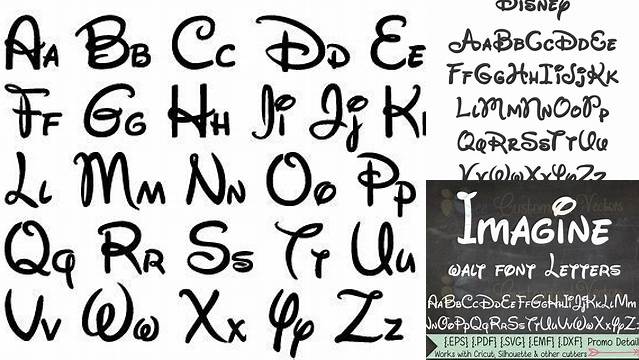
Magical Disney Fonts For Silhouette Studio: A Complete Guide
Hey crafters! Are you looking to add a touch of Disney magic to your Silhouette Studio projects? Well, you've come to the right place! In this guide, we'll explore everything you need to know about Disney fonts for Silhouette Studio, from finding the perfect typeface to using it in your amazing creations. Let's dive in and sprinkle some pixie dust on your designs!
1. Understanding Disney Fonts
So, what exactly are Disney fonts, guys? They're typefaces that capture the whimsical and enchanting spirit of Disney's iconic branding. Think about the classic Disney logo – that's a font! Many fan-made and inspired fonts aim to replicate this look, allowing you to bring that familiar magic to your own projects. However, it's crucial to understand that the official Disney fonts are copyrighted. Using them for commercial purposes without permission is a no-no. But don't worry! There are tons of fantastic free and paid alternatives that capture the Disney vibe without infringing on copyrights. When we talk about Disney fonts for Silhouette Studio, we are generally referring to these inspired typefaces that evoke the magic of Disney.
When searching for Disney fonts for Silhouette Studio, you'll notice there isn't one single “Disney font.” Instead, there’s a whole collection of fonts that capture different aspects of the Disney aesthetic. Some fonts mimic the classic, rounded lettering of the Disney logo, while others are inspired by specific characters or movies. This variety allows for a ton of creative expression in your projects. For instance, you might use a bold, whimsical font for a Mickey Mouse-themed birthday invitation or a more elegant, script-like font for a Cinderella-inspired design. The key is to choose a font that fits the overall style and theme of your project, enhancing the magical touch you're aiming for. Before downloading any fonts, always double-check the licensing agreement. Many free fonts are for personal use only, which means you can use them for your crafting projects at home but not for anything you plan to sell. If you intend to create products for sale, make sure to find fonts with a commercial license. This will protect you from any potential copyright issues down the road. Understanding these nuances will help you navigate the world of Disney fonts for Silhouette Studio with confidence and creativity, ensuring your projects are both magical and legally sound. Remember, the magic is in the details, and choosing the right font can make all the difference!
2. Where to Find Disney Inspired Fonts
Another tip for finding the perfect Disney fonts for Silhouette Studio is to look beyond the obvious. Think about the specific movies or characters that inspire you. Is there a particular typeface used in the movie's promotional materials or credits? You might be able to find fonts that closely resemble these styles. Social media can also be a fantastic resource. Follow crafters and designers who create Disney-themed projects, as they often share information about the fonts they use. Online forums and crafting communities are also great places to ask for recommendations. Members are usually happy to share their favorite fonts and resources. Plus, you might discover hidden gems and lesser-known font designers through these communities. When you find a font you love, make sure to save it to a folder on your computer for easy access. You can even create subfolders for different font styles or themes to keep things organized. Don't be afraid to experiment with different fonts and combinations to see what works best for your projects. After all, the magic of crafting is in the exploration and discovery! Remember, the perfect Disney font is out there waiting to be found, and with a little bit of searching, you'll have a collection of fonts that bring your Disney dreams to life in your Silhouette Studio projects. Happy font hunting!
4. Using Disney Fonts in Silhouette Studio Projects
Okay, the Disney fonts are installed, Silhouette Studio is open, and your creative juices are flowing! Now, let's talk about actually using these fonts in your projects. The possibilities are endless, guys! You can use Disney fonts for everything from personalized birthday cards and party decorations to custom t-shirts and home décor. Think about the projects you want to create and how a touch of Disney magic can elevate them. When using Disney fonts for Silhouette Studio, it’s important to consider the overall design and the message you want to convey. A whimsical, playful font might be perfect for a child's birthday invitation, while a more elegant, script-like font could add a touch of sophistication to a wedding-themed project. Experiment with different fonts and combinations to find the perfect fit for your vision.
One of the great things about Silhouette Studio is its versatility. You can easily resize, rotate, and manipulate fonts to create unique and eye-catching designs. Try adding shadows, outlines, or other effects to your fonts to make them stand out. You can also use the welding feature to connect script fonts seamlessly, creating a smooth and professional look. When working with Disney fonts for Silhouette Studio, remember to consider the cutting capabilities of your Silhouette machine. Some fonts, especially those with intricate details or thin lines, may be more challenging to cut than others. It's always a good idea to do a test cut on a small piece of material before committing to a larger project. This will help you identify any potential issues and adjust your settings accordingly. Another tip is to use the “Offset” feature in Silhouette Studio to create a thicker outline around your text. This can make the font easier to cut and weed, especially when working with delicate fonts or intricate designs. Don't be afraid to get creative with your font choices! Mix and match different fonts to create visual interest and add personality to your projects. You can also incorporate other design elements, such as images, shapes, and patterns, to complement your text and create a cohesive overall design. When choosing Disney fonts, think about the specific characters or movies that inspire you. Use fonts that capture the essence of these characters or stories to add a special touch to your projects. For example, you might use a font that resembles the lettering from “Beauty and the Beast” for a wedding invitation or a font inspired by “Toy Story” for a child's bedroom decor. The key is to have fun and let your creativity shine! With the right Disney fonts for Silhouette Studio and a little bit of imagination, you can create truly magical projects that will delight you and everyone who sees them.
5. Best Disney Font Alternatives
Okay, let's talk alternatives! While using the official Disney fonts might not always be an option due to copyright restrictions, there are tons of fantastic Disney font alternatives out there that capture the magic and whimsy of Disney without infringing on any rights. These alternatives are perfect for adding that special touch to your Silhouette Studio projects. So, what are some of the best options? One popular choice is the Waltograph font, which closely resembles the iconic Disney logo font. It's a classic choice that's instantly recognizable and adds a touch of nostalgia to any project. Another great option is Mouse Memoirs, which captures the playful and rounded style of the Disney lettering. It's a versatile font that works well for a variety of projects, from invitations to t-shirts.
When exploring Disney font alternatives, consider what aspects of the Disney aesthetic you want to capture. Are you looking for a font that mimics the classic logo, or are you more interested in a font that evokes the spirit of a particular movie or character? For example, if you're working on a Cinderella-themed project, you might look for a script font that has an elegant and fairytale-like feel. If you're creating something for a Toy Story fan, you might opt for a font that's more playful and whimsical. Some other great Disney font alternatives include fonts like Magic Kingdom, which has a slightly more modern and stylized look, and Storybook, which is perfect for adding a touch of whimsy to your projects. When searching for alternatives, pay attention to the details of the font. Look for fonts that have similar characteristics to the Disney fonts you love, such as rounded edges, playful curves, and a sense of movement. You can also experiment with different font combinations to create unique and eye-catching designs. For example, you might pair a script font with a bold sans-serif font to create a balanced and visually appealing look. Remember, the goal is to capture the essence of Disney in your projects without directly copying the official fonts. By exploring these Disney font alternatives, you can add a touch of magic to your creations while staying within the bounds of copyright law. So go ahead, unleash your creativity and start crafting your own Disney-inspired masterpieces!
6. Free Disney Fonts vs. Paid Disney Fonts
Alright, let's dive into the world of free versus paid Disney fonts. It's a question that many crafters ponder when searching for the perfect typeface for their Silhouette Studio projects. So, what's the deal? Well, both free and paid fonts have their pros and cons, and the best choice for you will depend on your specific needs and budget. Free Disney fonts can be a great option if you're just starting out or if you're working on personal projects. There are many websites that offer free fonts that capture the Disney spirit, such as DaFont and FontSpace. These fonts can be a fantastic way to add a touch of magic to your creations without spending any money.
However, it's important to be aware of the limitations of free Disney fonts. One of the biggest considerations is licensing. Many free fonts are only licensed for personal use, which means you can use them for your crafting projects at home but not for anything you plan to sell or use for commercial purposes. If you intend to create products for sale, you'll need to find fonts with a commercial license, which usually means opting for a paid font. Another factor to consider is the quality of the font. Free fonts are sometimes created by amateur designers, and they may not be as polished or well-designed as paid fonts. They might have kerning issues (the spacing between letters) or other technical flaws that can affect the overall look of your project. Paid Disney fonts, on the other hand, often come with a higher level of quality and attention to detail. They're typically designed by professional font designers who have a deep understanding of typography. Paid fonts also often come with a commercial license, which gives you the freedom to use them for a wider range of projects, including those you plan to sell. In addition, paid fonts often include extra features, such as multiple weights, styles, or glyphs (special characters), which can give you more creative flexibility. When deciding between free and paid Disney fonts, it's important to weigh your options carefully. If you're on a tight budget or only need a font for personal use, a free font might be a good choice. However, if you're serious about crafting and want to create professional-looking projects, investing in paid fonts is often worth the cost. Remember to always check the licensing agreement before using any font, whether it's free or paid, to ensure you're complying with the terms of use. Choosing the right font is an important part of the design process, and understanding the differences between free and paid options will help you make informed decisions.
7. Commercial Use of Disney Fonts
Let's talk business, guys! Specifically, let's discuss the commercial use of Disney fonts. This is a crucial topic for any crafter who plans to sell their creations. As we've mentioned before, official Disney fonts are copyrighted, which means you can't use them for commercial purposes without permission from Disney. This includes creating products like t-shirts, mugs, or stickers that feature Disney characters or logos using official fonts. Using copyrighted fonts without permission can lead to legal trouble, so it's essential to be aware of the rules and regulations.
When we talk about the commercial use of Disney fonts, we're usually referring to Disney-inspired fonts, not the official fonts themselves. These inspired fonts are designed to capture the Disney aesthetic without directly copying the copyrighted designs. However, even when using Disney-inspired fonts, it's important to exercise caution and ensure that you're not infringing on any copyrights or trademarks. One key thing to look for is a commercial license. If you plan to use a font for commercial purposes, you need to make sure that it comes with a commercial license that allows you to do so. Many font designers offer different types of licenses, with commercial licenses typically costing more than personal use licenses. The commercial license will specify the terms of use, including what you can and can't do with the font. For example, it might specify the number of products you can create using the font or the types of projects you can use it for. When you purchase a font with a commercial license, make sure to keep a copy of the license agreement for your records. This will help you prove that you have the right to use the font if you ever need to. It's also a good idea to read the license agreement carefully to understand the terms and conditions. Another important consideration when using Disney-inspired fonts for commercial purposes is to avoid creating designs that are too similar to Disney's official branding. Even if you're not using the official fonts, if your design is likely to be confused with a Disney product, you could still be at risk of copyright infringement. The best way to avoid this is to create original designs that have your own unique style and flair. Don't try to directly copy Disney's designs or characters; instead, use the Disney aesthetic as inspiration and put your own spin on it. The commercial use of Disney fonts can be a bit of a legal minefield, but by understanding the rules and regulations and exercising caution, you can create beautiful and profitable products without running into trouble. Always prioritize creativity and originality in your designs, and make sure you have the appropriate licenses for any fonts you use. This will help you protect yourself and your business and ensure that you can continue crafting with confidence.
8. Personal Use of Disney Fonts
Now, let's switch gears and talk about the personal use of Disney fonts. This is where things get a little more relaxed! If you're using Disney fonts for projects that are just for you, your family, or your friends, you have a lot more flexibility. You can use Disney-inspired fonts to create birthday cards, party decorations, personalized gifts, and all sorts of fun projects without worrying too much about commercial licenses. However, it's still important to be mindful of copyright, even when using fonts for personal use.
When using Disney fonts for personal use, you can often use fonts that are labeled as “free for personal use.” These fonts are typically available for download without charge, but they come with the condition that you can't use them for commercial purposes. This means you can't sell anything you create using these fonts, but you're free to use them for your personal crafting projects. One of the great things about using Disney fonts for personal use is that you can let your creativity run wild! You can experiment with different fonts, colors, and designs to create unique and personalized projects. Whether you're making a Mickey Mouse-themed birthday banner or a Cinderella-inspired scrapbook page, Disney fonts can add a touch of magic and whimsy to your creations. When choosing Disney fonts for personal use, consider the overall style and tone of your project. A playful and whimsical font might be perfect for a child's birthday party, while a more elegant and sophisticated font could be ideal for a wedding-themed project. You can also mix and match different fonts to create visual interest and add personality to your designs. For example, you might use a script font for headings and a sans-serif font for body text. When downloading fonts for personal use, always make sure to download them from a reputable source. There are many websites that offer free fonts, but not all of them are safe. Some websites may contain malware or viruses that can harm your computer. It's always a good idea to scan downloaded files with antivirus software before opening them. If you're unsure about the safety of a website, it's best to err on the side of caution and download fonts from a more trusted source. The personal use of Disney fonts is a fantastic way to add a touch of magic to your crafting projects. You have the freedom to experiment and create without worrying about commercial licenses, as long as you're not selling anything you make. So go ahead, unleash your inner Disney fan and start crafting your own magical creations!
9. Combining Disney Fonts with Other Design Elements
Okay, you've got your Disney fonts all ready to go, but how do you make them truly shine? The secret is combining them with other design elements! Think of your font as just one piece of the puzzle. To create a truly magical design, you need to consider how it interacts with other elements like images, colors, shapes, and textures. When combining Disney fonts with other design elements, the goal is to create a cohesive and visually appealing composition. You want all the elements to work together harmoniously, enhancing the overall message and aesthetic of your project. One of the first things to consider is the color palette. Disney designs often feature bright, vibrant colors that evoke a sense of fun and whimsy. Think about the colors associated with your favorite Disney characters or movies and try incorporating them into your design.
When combining Disney fonts with other design elements, it's important to maintain a sense of balance and proportion. You don't want any one element to overpower the others. For example, if you're using a bold and decorative font, you might want to pair it with simpler images and shapes. Conversely, if you're using a more subtle font, you can add visual interest with more elaborate illustrations or patterns. Another key element to consider is spacing. Pay attention to the amount of space between your fonts, images, and other elements. Too much space can make your design feel disjointed, while too little space can make it feel cluttered. Experiment with different spacing options until you find a balance that works well for your project. When incorporating images into your design, choose images that complement the style and tone of your Disney fonts. For example, if you're using a script font with a fairytale vibe, you might pair it with illustrations of castles, princesses, or magical creatures. If you're using a more playful and modern font, you might opt for cartoon-style illustrations or graphic elements. Texture can also be a powerful design element. Consider adding textures to your backgrounds or other elements to create depth and visual interest. You can use digital textures or even incorporate physical textures into your projects, such as glitter, fabric, or paper. The key to successfully combining Disney fonts with other design elements is experimentation. Don't be afraid to try new things and see what works best. Play around with different fonts, colors, images, and textures until you create a design that you love. Remember, the goal is to create a magical and memorable experience for your audience. By carefully considering how your Disney fonts interact with other design elements, you can create projects that truly capture the Disney spirit and bring a smile to everyone's face. So go ahead, unleash your creativity and start designing your own Disney-inspired masterpieces!
10. Finding the Right Weight and Style for Disney Fonts
Alright, let's talk about finding the right weight and style for your Disney fonts. Just like people, fonts come in all shapes and sizes, and choosing the right one can make a big difference in the overall look and feel of your project. The weight of a font refers to how thick or thin the letters are. Disney fonts, like any other fonts, come in various weights, such as light, regular, bold, and extra bold. The style of a font refers to its overall appearance, such as whether it's a script font, a sans-serif font, or a decorative font. When choosing the weight and style of your Disney fonts, it's important to consider the purpose of your project and the message you want to convey. A bold font might be a good choice for a headline or title, while a lighter font might be more suitable for body text.
When choosing the right weight and style for Disney fonts, think about the overall aesthetic you're trying to achieve. Are you going for a classic and timeless look, or something more modern and whimsical? If you're creating a project that's inspired by a particular Disney movie or character, think about the visual style of that movie or character and choose fonts that reflect that style. For example, if you're creating a Cinderella-themed project, you might opt for a script font with an elegant and fairytale-like feel. If you're creating something for a Toy Story fan, you might choose a font that's more playful and whimsical. The weight of your font can also impact the readability of your design. If you're using a font for body text, you'll want to choose a weight that's easy to read, even at smaller sizes. A font that's too light or too bold can be difficult to read, especially for people with visual impairments. When working with decorative Disney fonts, it's important to use them sparingly. Too much decoration can make your design feel cluttered and overwhelming. Use decorative fonts for headlines or titles, and pair them with simpler fonts for body text. This will help create a balanced and visually appealing design. Experiment with different font combinations to see what works best for your project. You can pair a script font with a sans-serif font, or a bold font with a light font. The key is to find combinations that complement each other and create a cohesive overall look. When choosing the right weight and style for Disney fonts, don't be afraid to try something new. Step outside your comfort zone and experiment with different font styles and weights. You might be surprised at what you discover. Remember, the goal is to create a design that's both visually appealing and effective at communicating your message. By carefully considering the weight and style of your Disney fonts, you can create projects that truly capture the Disney spirit and leave a lasting impression. So go ahead, explore the world of Disney fonts and find the perfect ones for your next project!